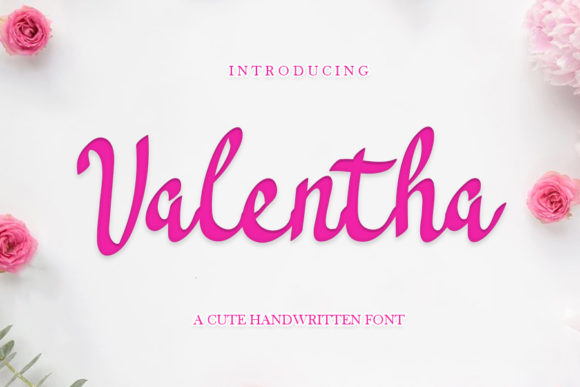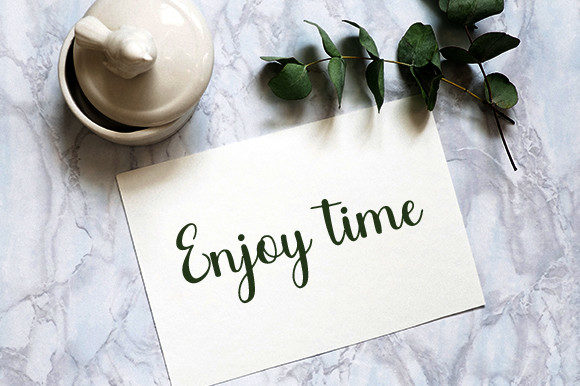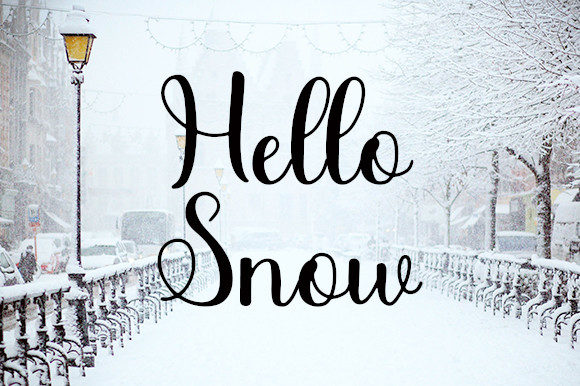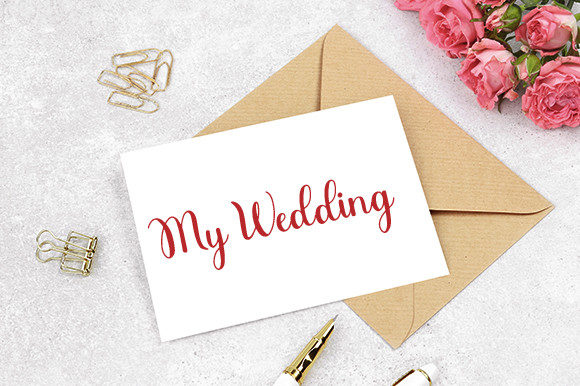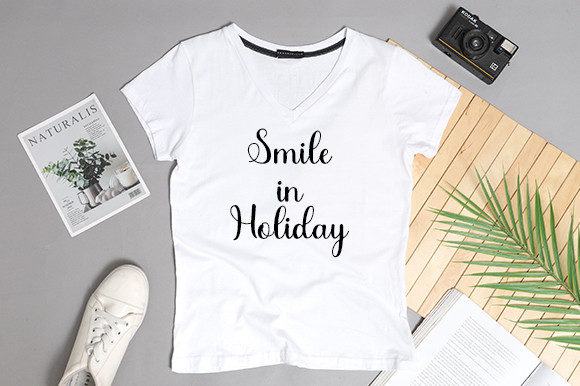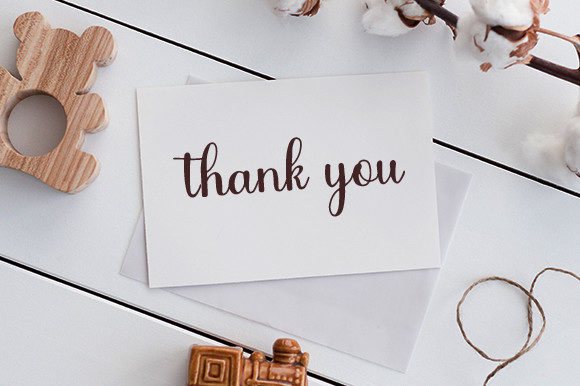
Snowflake Font
About Snowflake Font
Snowflake is a script font created by paying careful attention to every curve and distance between letters to produce high-quality typography. Use this typeface to create amazing wedding invitations, t-shirts, branding materials, ads, and more.